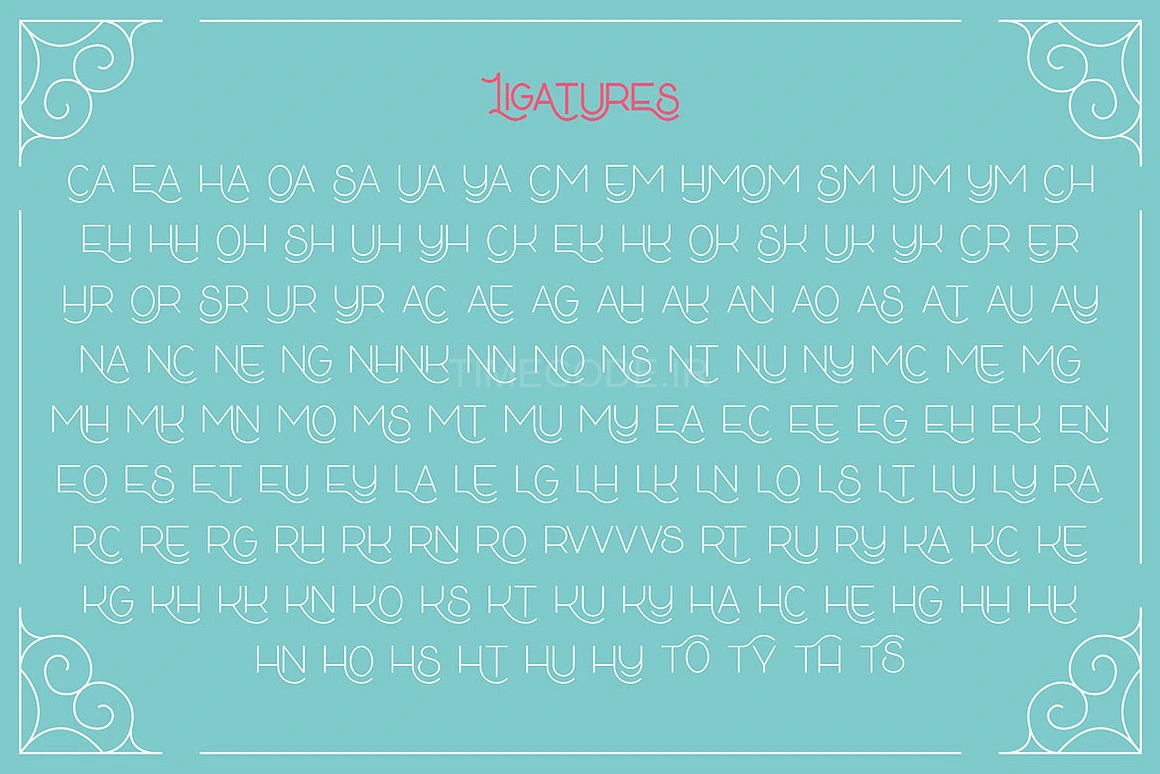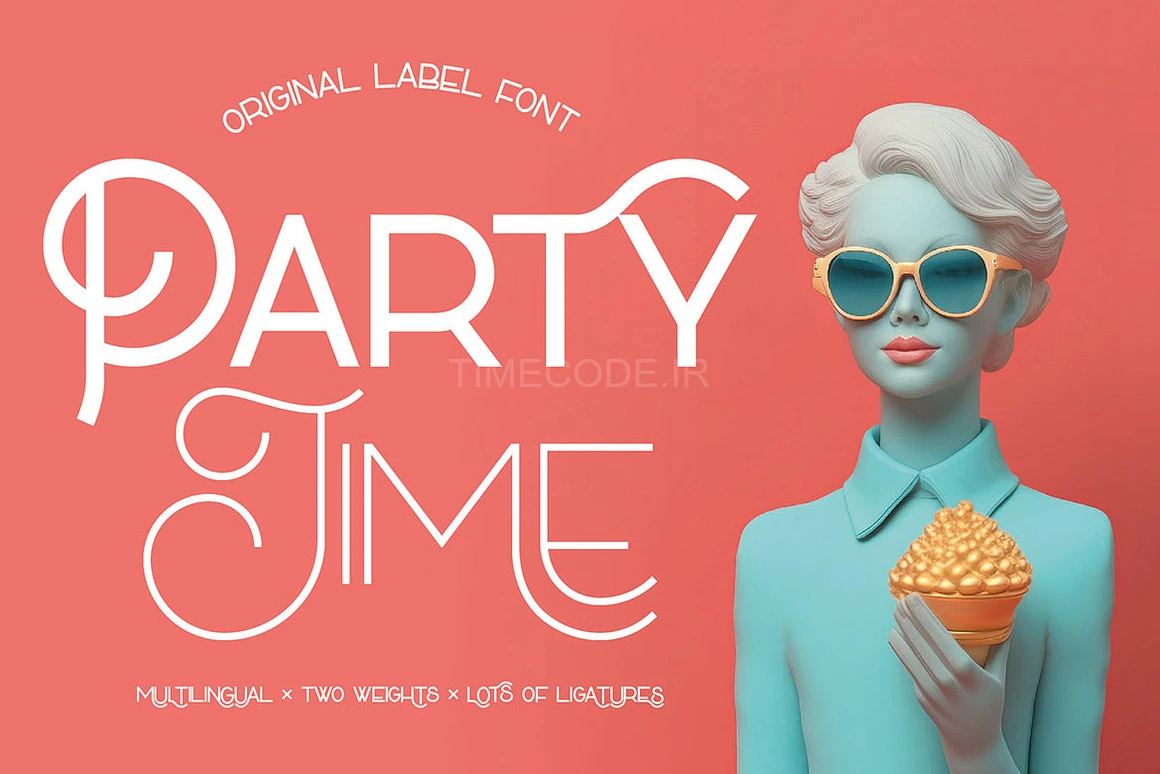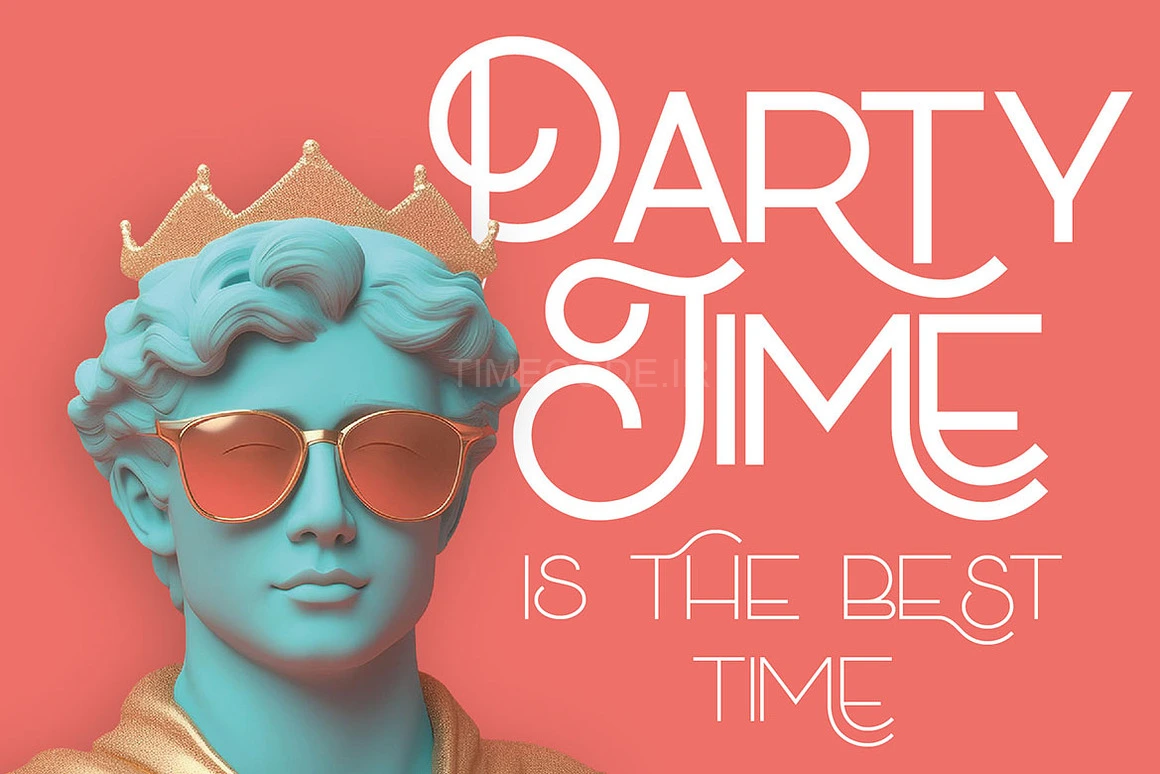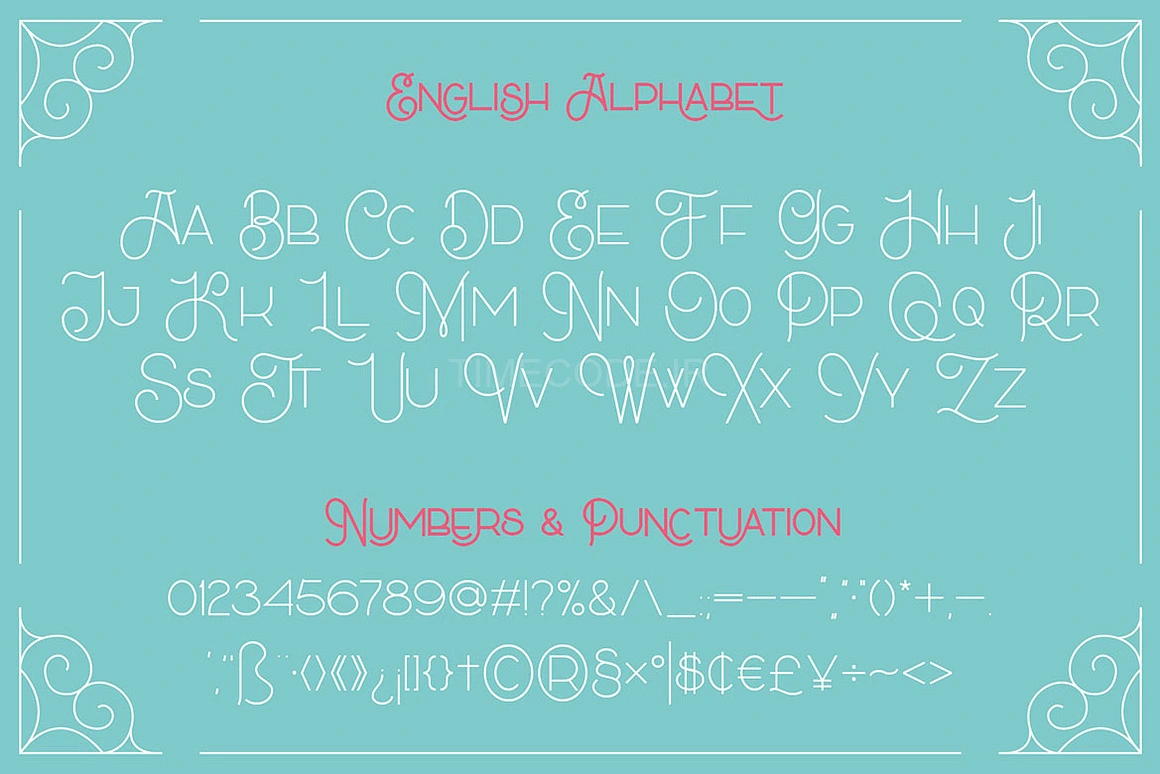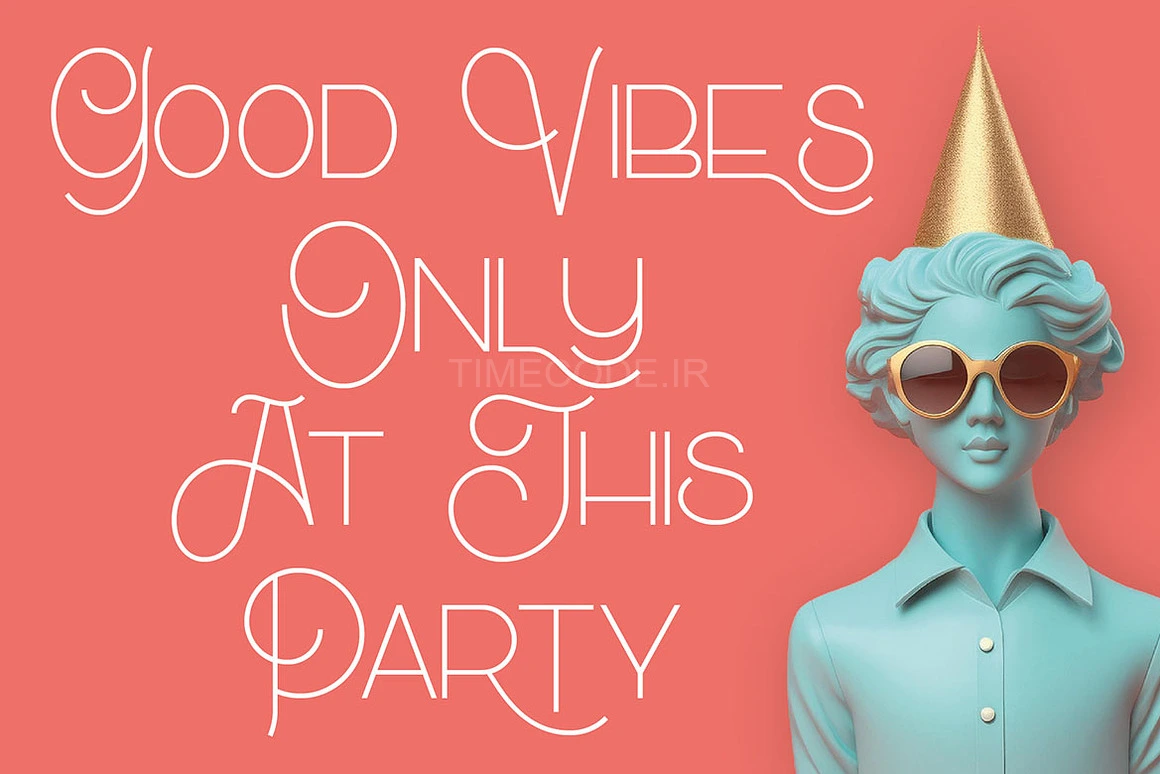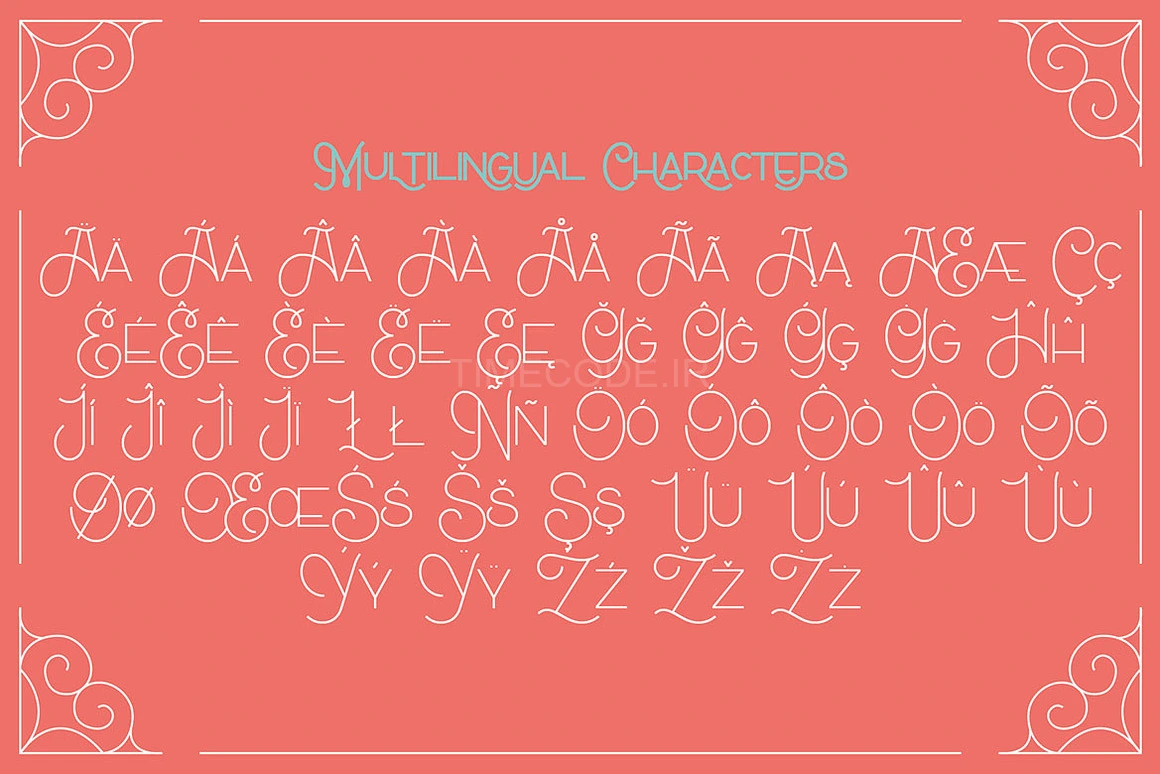
Unique, decorative, elegant, clean, ligature, monogram & stylish sans serif font. Comes with multilingual support and lot of ligatures + 2 font versions - great for your new logo, monogram or branding project.
- 2 font versions - regular & bold
- Multilingual support and lot of ligatures
- Great for your new logo, monogram or branding project